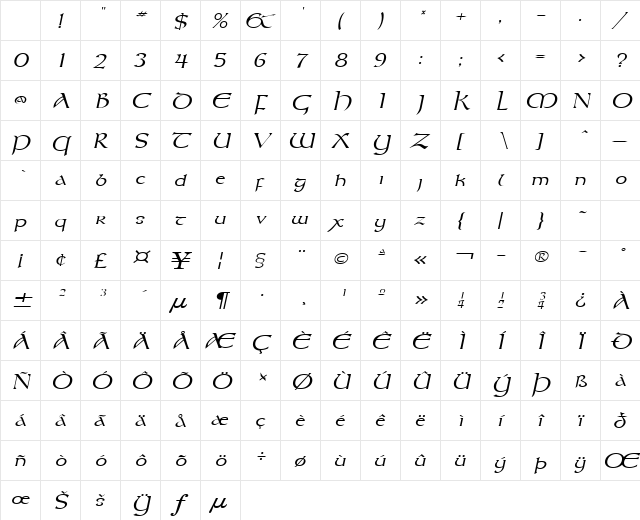
Kelt Wide is a composed and adaptable typeface that performs quietly and consistently across a wide range of design contexts. The slanted form adds forward momentum and visual energy.